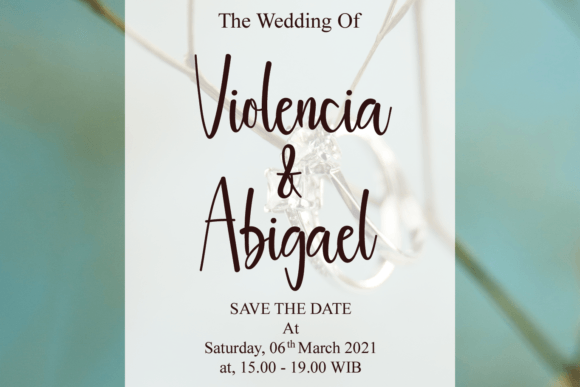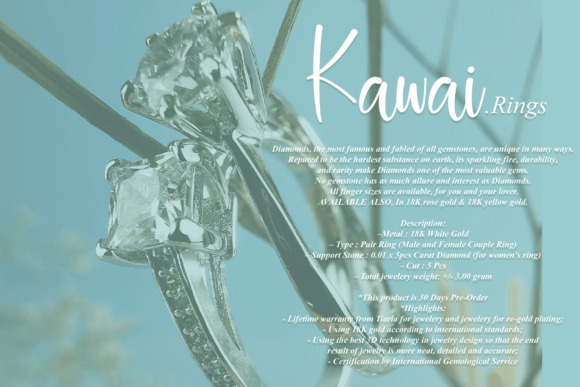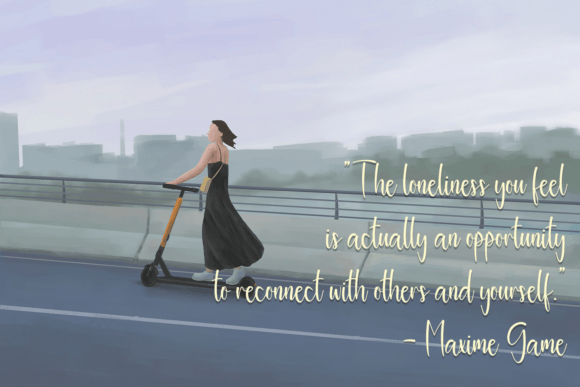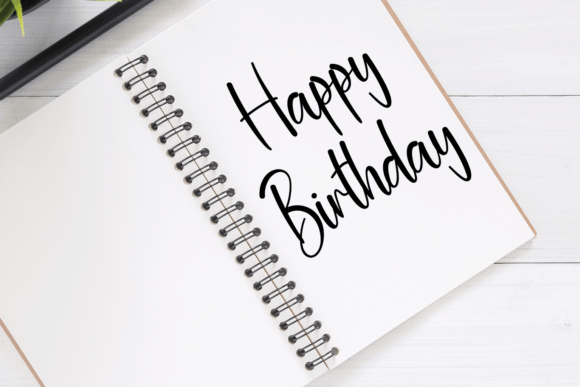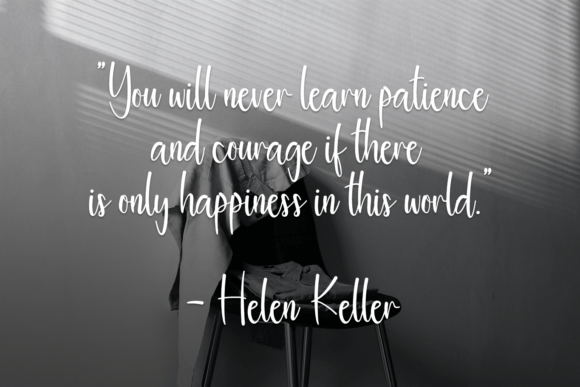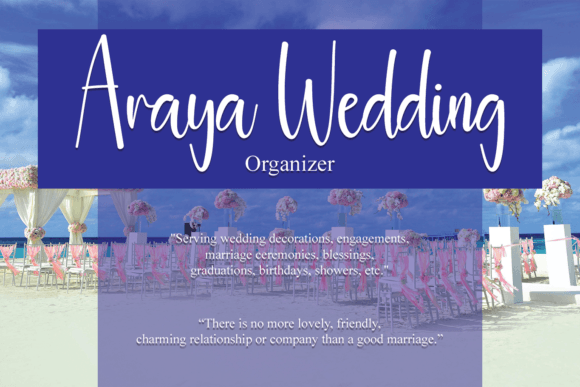
Babies Font: The Ultimate Guide to this Exquisite Handwritten Font
Babies Font is a stunning handwritten font that has captured the hearts of designers and crafters alike. With its classy calligraphic influences and contemporary feel, it’s no wonder why this font has become a true favorite among creative enthusiasts. In this comprehensive guide, we’ll dive into the world of Babies Font, exploring its features, benefits, and uses, as well as provide tips and inspiration for incorporating it into your projects.
The Story Behind Babies Font
Babies Font is a masterfully designed font that boasts a unique blend of traditional calligraphy and modern flair. Its creator aimed to craft a font that would evoke a sense of elegance and sophistication, while still feeling fresh and contemporary. The result is a font that exudes refinement and poise, making it perfect for a wide range of applications, from wedding invitations and branding materials to packaging and digital media.
Key Features of Babies Font
- Handwritten with love: Babies Font is a carefully crafted handwritten font, imbuing each character with a sense of personality and charm.
- Classy calligraphic influences: The font’s calligraphic roots are evident in its flowing lines, elegant swashes, and refined letterforms.
- Contemporary and fresh: Despite its classic influences, Babies Font feels modern and up-to-date, making it perfect for designers and crafters looking for a font that will stand out from the crowd.
- Versatile: With its wide range of applications, Babies Font is an excellent addition to any designer’s or crafter’s toolkit.
Benefits of Using Babies Font
So, why should you choose Babies Font for your next project? Here are just a few benefits of using this exquisite font:
- Add a touch of elegance: Babies Font brings a level of sophistication and refinement to any project, making it perfect for high-end branding, wedding stationery, and more.
- Stand out from the crowd: With its unique blend of classic and modern elements, Babies Font is sure to grab attention and leave a lasting impression.
Using Babies Font in Your Projects
So, how can you incorporate Babies Font into your designs? Here are a few ideas to get you started:
- Wedding stationery: Use Babies Font to create stunning wedding invitations, save-the-dates, and ceremony programs.
- Branding and packaging: Add a touch of elegance to your brand’s packaging and marketing materials with Babies Font.
- Digital media: Use Babies Font to create eye-catching social media graphics, blog headers, and more.
- Crafting and DIY projects: Incorporate Babies Font into your crafting and DIY projects, such as handmade cards, gift tags, and scrapbooking pages.
To get the most out of Babies Font, here are a few tips and inspiration to keep in mind:
- Experiment with different colors and textures: Add depth and interest to your designs by pairing Babies Font with a range of colors and textures.
- Mix and match with other fonts: Combine Babies Font with other fonts to create unique and eye-catching typography.
- Play with swashes and flourishes: Take advantage of Babies Font’s beautiful swashes and flourishes to add a touch of elegance to your designs.
In conclusion, Babies Font is a truly exquisite handwritten font that is sure to capture your heart. With its classy calligraphic influences, contemporary feel, and versatility, it’s the perfect addition to any designer’s or crafter’s toolkit. Whether you’re working on a wedding stationery project, branding materials, or digital media, Babies Font is sure to bring a touch of elegance and sophistication to your designs. So why wait? Fall in love with Babies Font and bring your projects to the highest levels!